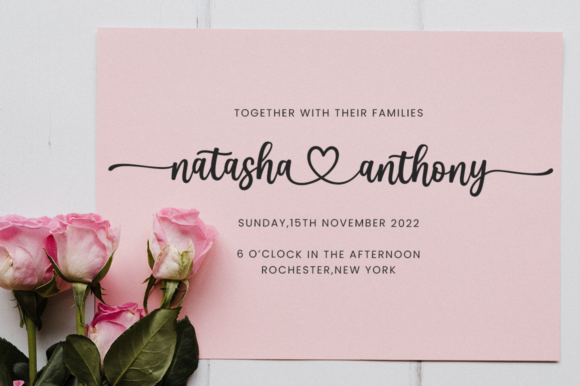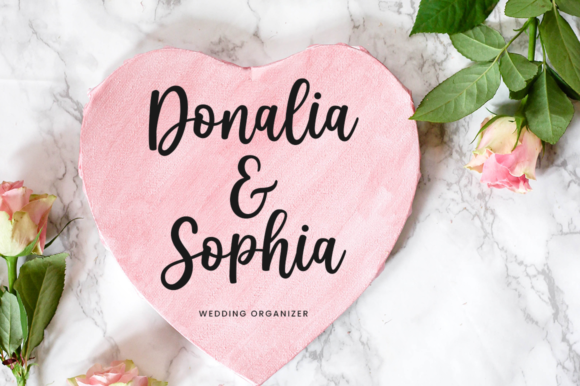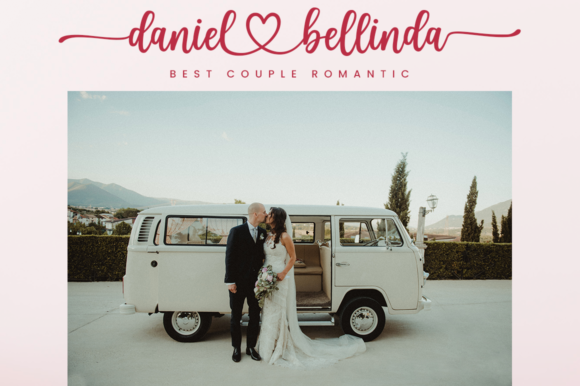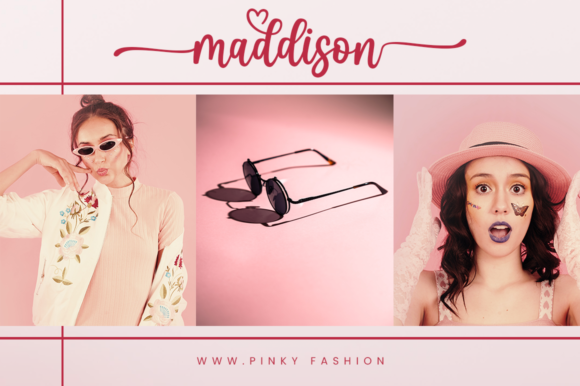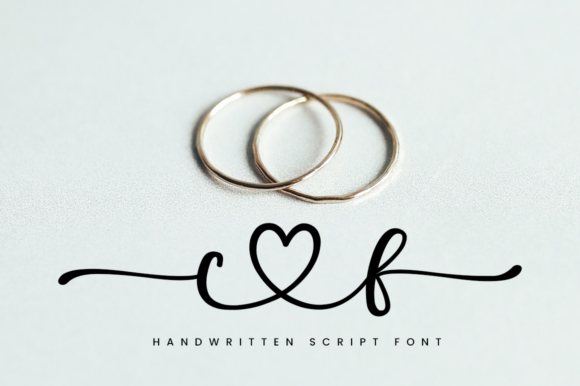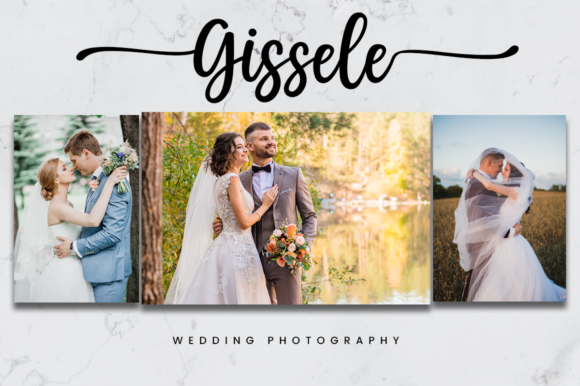
Baby Aletha Font: The Ultimate Romantic Calligraphy Typeface for Designers and Crafters
Are you looking for a font that can add a touch of luxury and romance to your design projects? Look no further than the Baby Aletha Font! This beautiful calligraphy typeface is perfect for designers and crafters who want to create stunning visuals that exude elegance and sophistication. In this article, we’ll take a closer look at the features and benefits of the Baby Aletha Font and explore how it can elevate your design game.
What is Baby Aletha Font?
Baby Aletha Font is a romantic and sweet calligraphy typeface that is designed to make your designs stand out. Its characters dance along the baseline, creating a sense of movement and fluidity that is sure to capture the attention of your audience. This font is perfect for a variety of design projects, including wedding invitations, branding, packaging, and more.
Key Features of Baby Aletha Font
So, what makes Baby Aletha Font so special? Here are some of its key features:
• Romantic and Sweet Design: Baby Aletha Font has a romantic and sweet design that is perfect for creating elegant and sophisticated visuals.
• Luxury Spark: This font is designed to add a luxury spark to any design project, making it perfect for high-end branding and marketing materials.
• PUA Encoded: Baby Aletha Font is PUA encoded, which means that you can access all of the amazing glyphs and ligatures with ease.
• Characters that Dance Along the Baseline: The characters in Baby Aletha Font are designed to dance along the baseline, creating a sense of movement and fluidity.
Benefits of Using Baby Aletha Font
So, why should you use Baby Aletha Font in your design projects? Here are some of the benefits:
• Elegance and Sophistication: Baby Aletha Font can add a touch of elegance and sophistication to any design project.
• Versatility: This font is versatile and can be used for a variety of design projects, including wedding invitations, branding, packaging, and more.
• Easy to Use: Baby Aletha Font is easy to use and can be accessed with ease, thanks to its PUA encoding.
• Unique and Creative: This font is unique and creative, making it perfect for designers and crafters who want to stand out from the crowd.
How to Use Baby Aletha Font in Your Design Projects
Using Baby Aletha Font in your design projects is easy! Here are some tips:
• Pair it with Other Fonts: Baby Aletha Font can be paired with other fonts to create a unique and creative look.
• Use it for Headings and Titles: This font is perfect for headings and titles, where you want to make a statement.
• Experiment with Different Colors and Textures: Baby Aletha Font can be used with different colors and textures to create a unique and creative look.
In conclusion, Baby Aletha Font is a romantic and sweet calligraphy typeface that is perfect for designers and crafters who want to create stunning visuals. Its luxury spark, PUA encoding, and characters that dance along the baseline make it a must-have font for any design project. With its elegance and sophistication, versatility, ease of use, and unique and creative design, Baby Aletha Font is sure to elevate your design game. So why wait? Download Baby Aletha Font today and start creating stunning visuals that will leave a lasting impression!